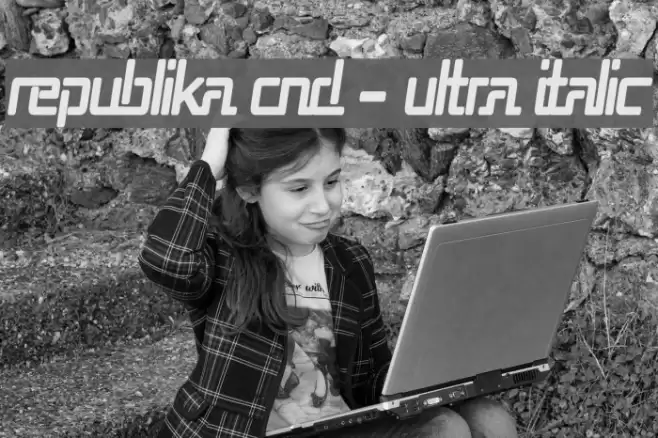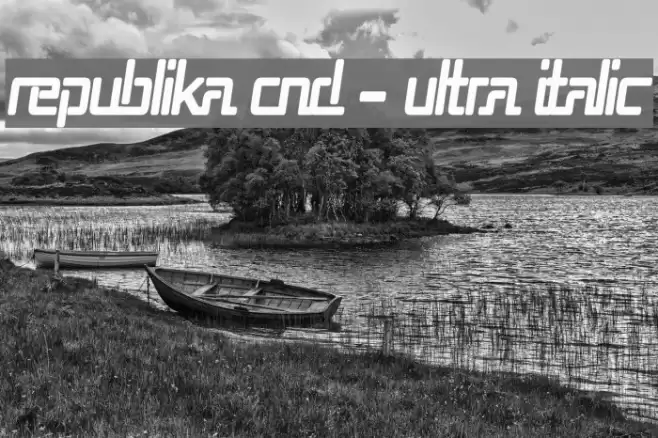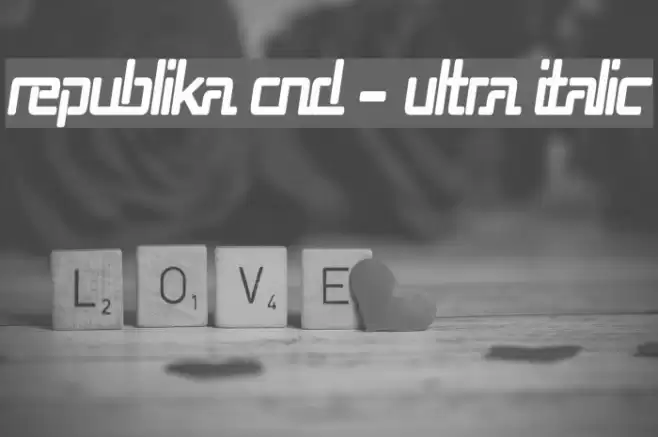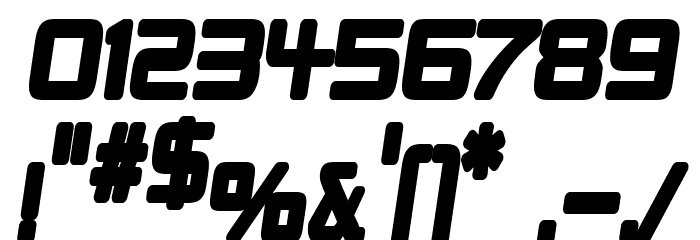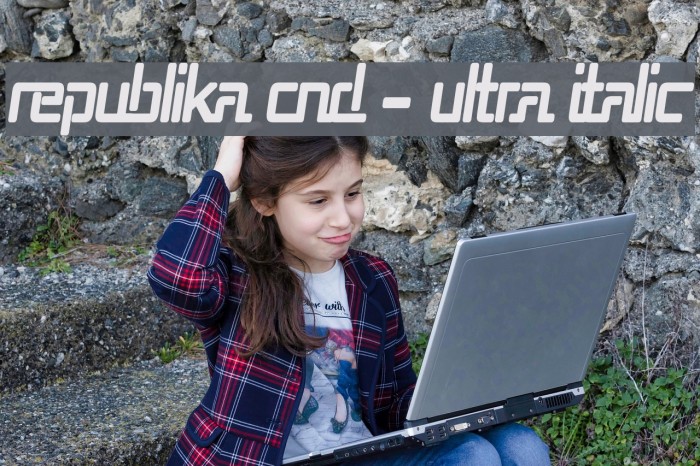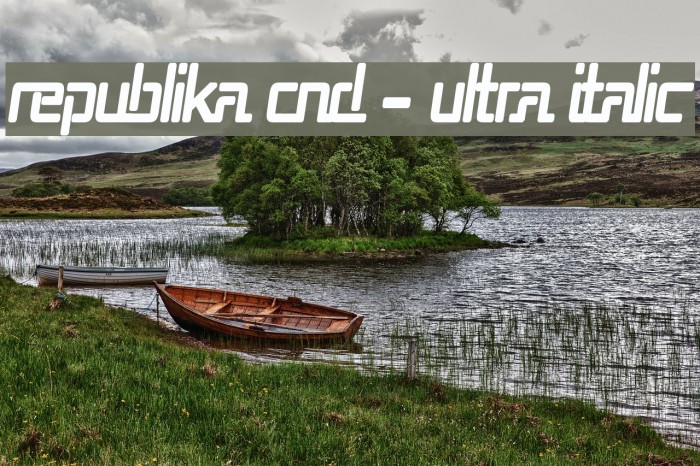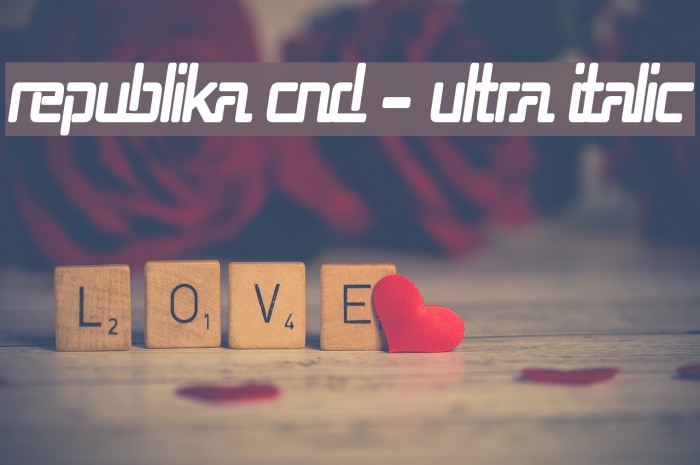
Republika Cnd - Ultra Italic Font
Republika Cnd - Ultra Italic Description
This font features a bold, italicized style with a condensed width, giving it a modern and dynamic appearance. The characters are designed with a strong geometric influence, showcasing sharp angles and clean lines. The uppercase and lowercase letters maintain a consistent height, contributing to a uniform look. The numerals and special characters are crafted with the same boldness, ensuring readability and impact. The overall design is sleek and futuristic, making it suitable for contemporary projects that require a strong visual presence.
A bold, italic, and condensed font with a modern, geometric style from Uncategorized fonts.
- Proposed Projects: Ideal for branding, sports team logos, tech-related designs, and modern advertising campaigns.
- Character Spacing: Tight
- Use Case: Logos, Headlines, Branding